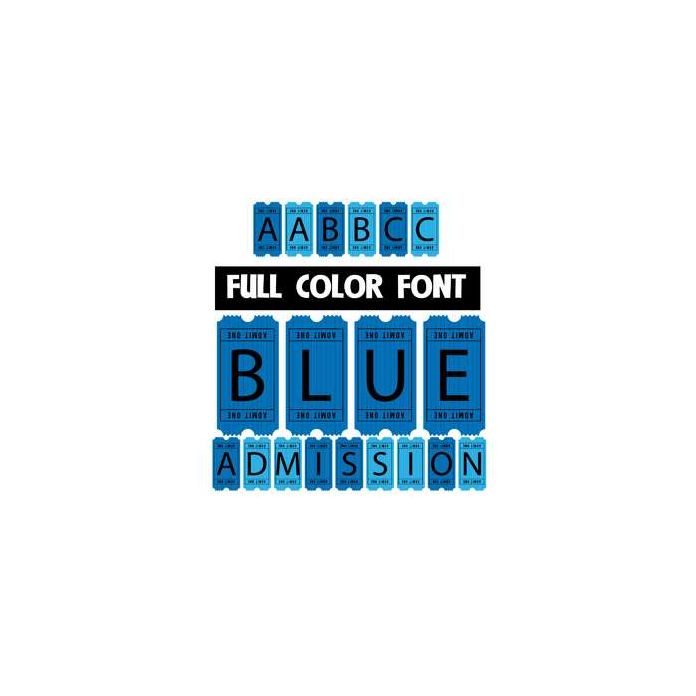
This full-color font features blue admission tickets with the upper and lower being two different colors of blue. This font works best for titles, displays, posters and more. Please note color fonts will show as black in non compatible programs. This font type is compatible with Silhouette Studio.